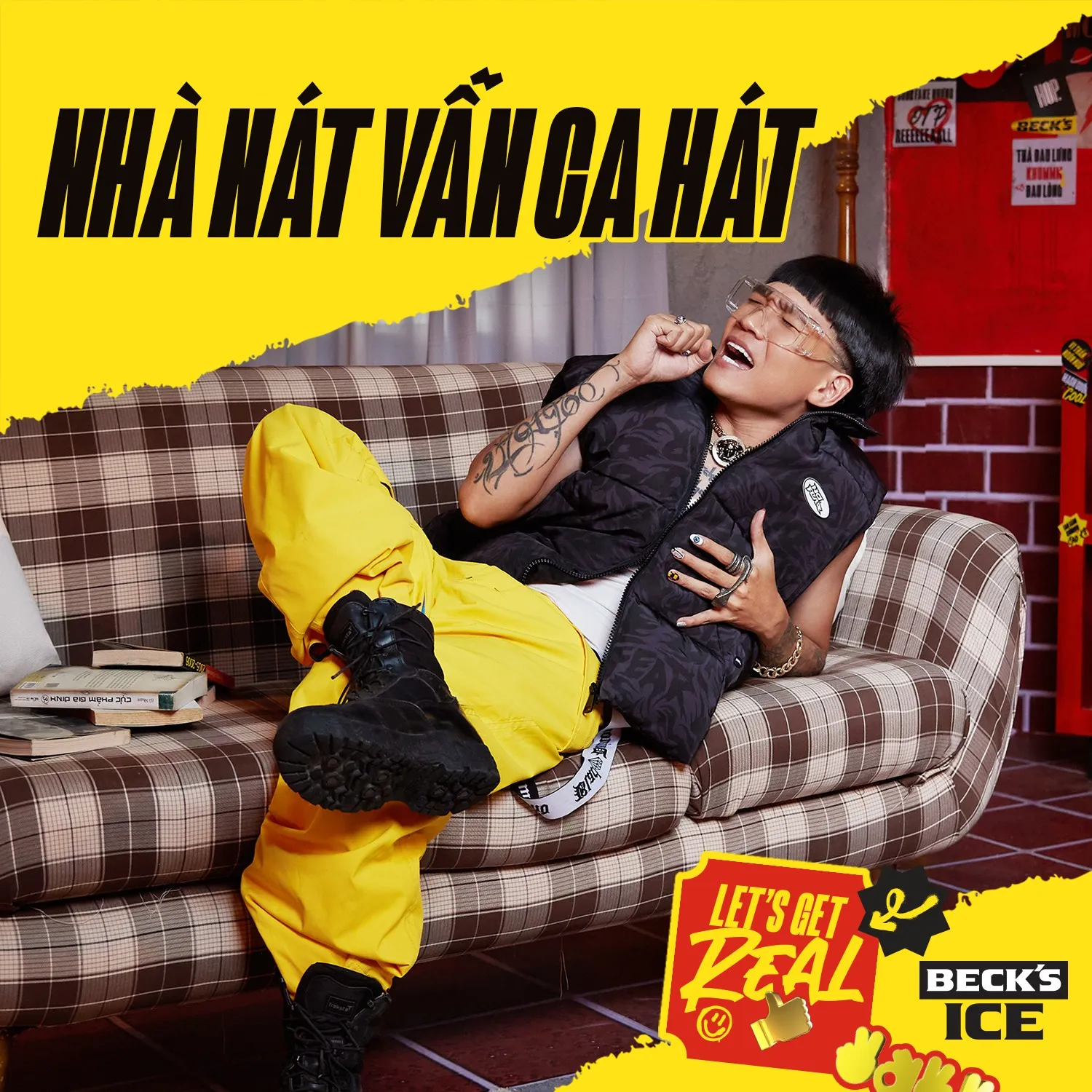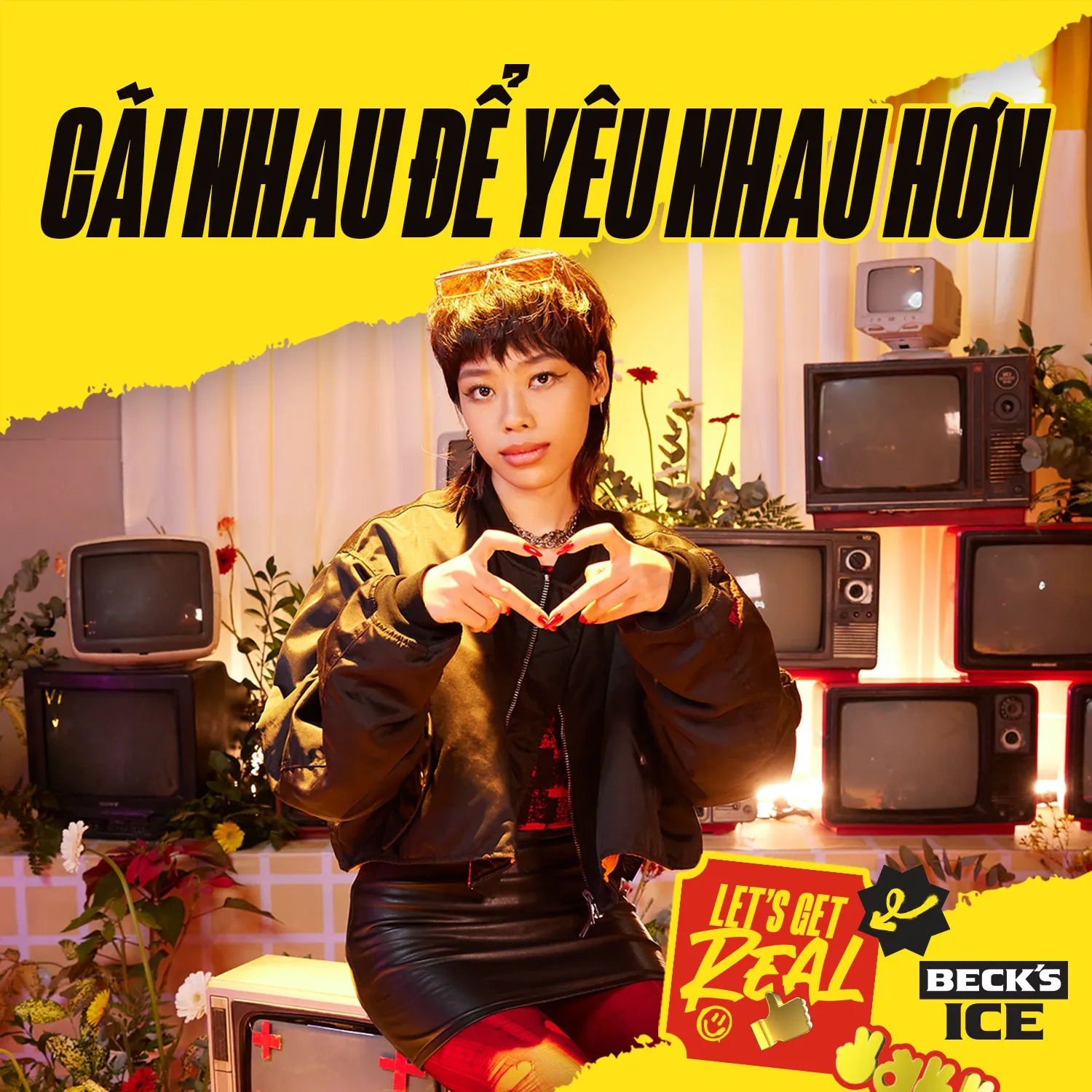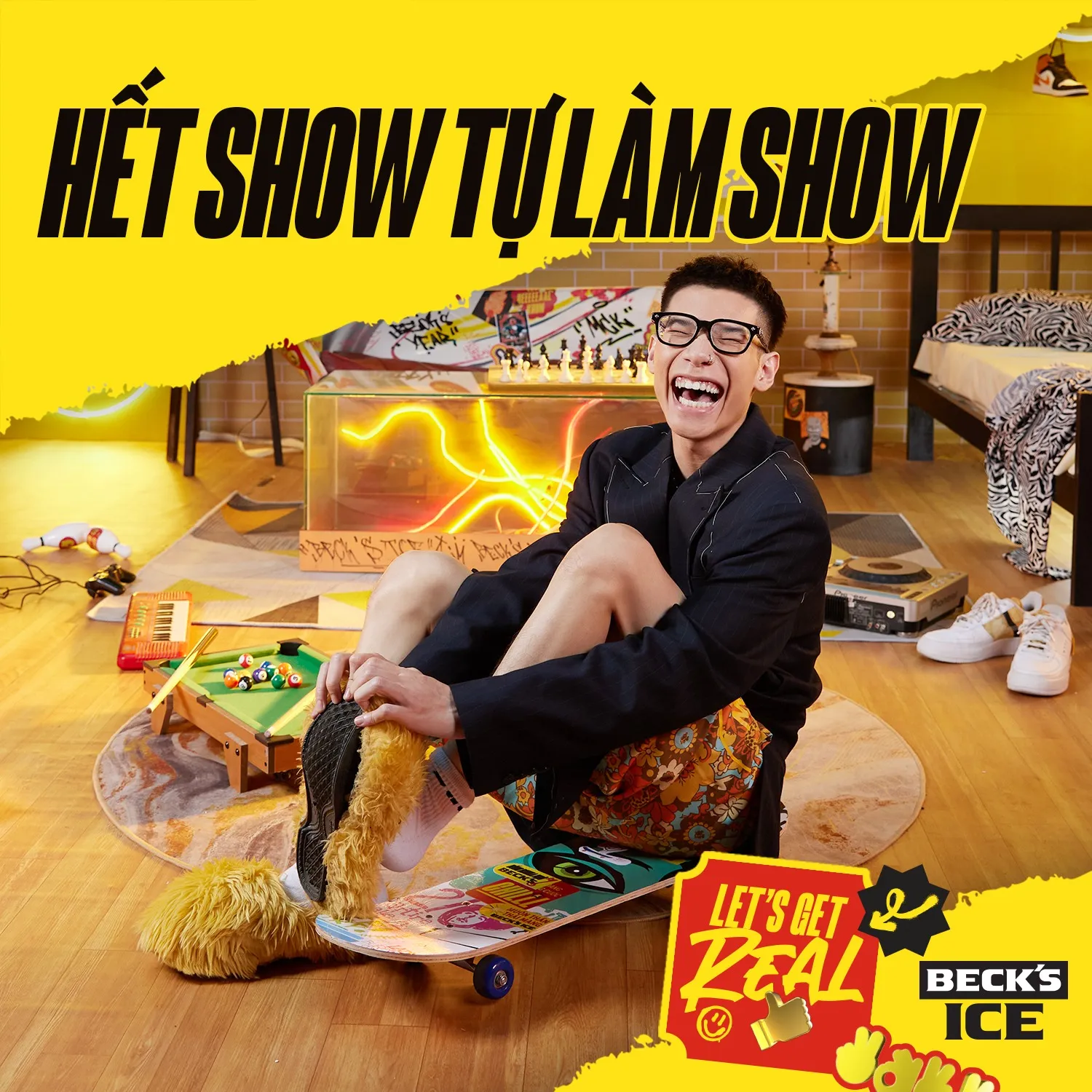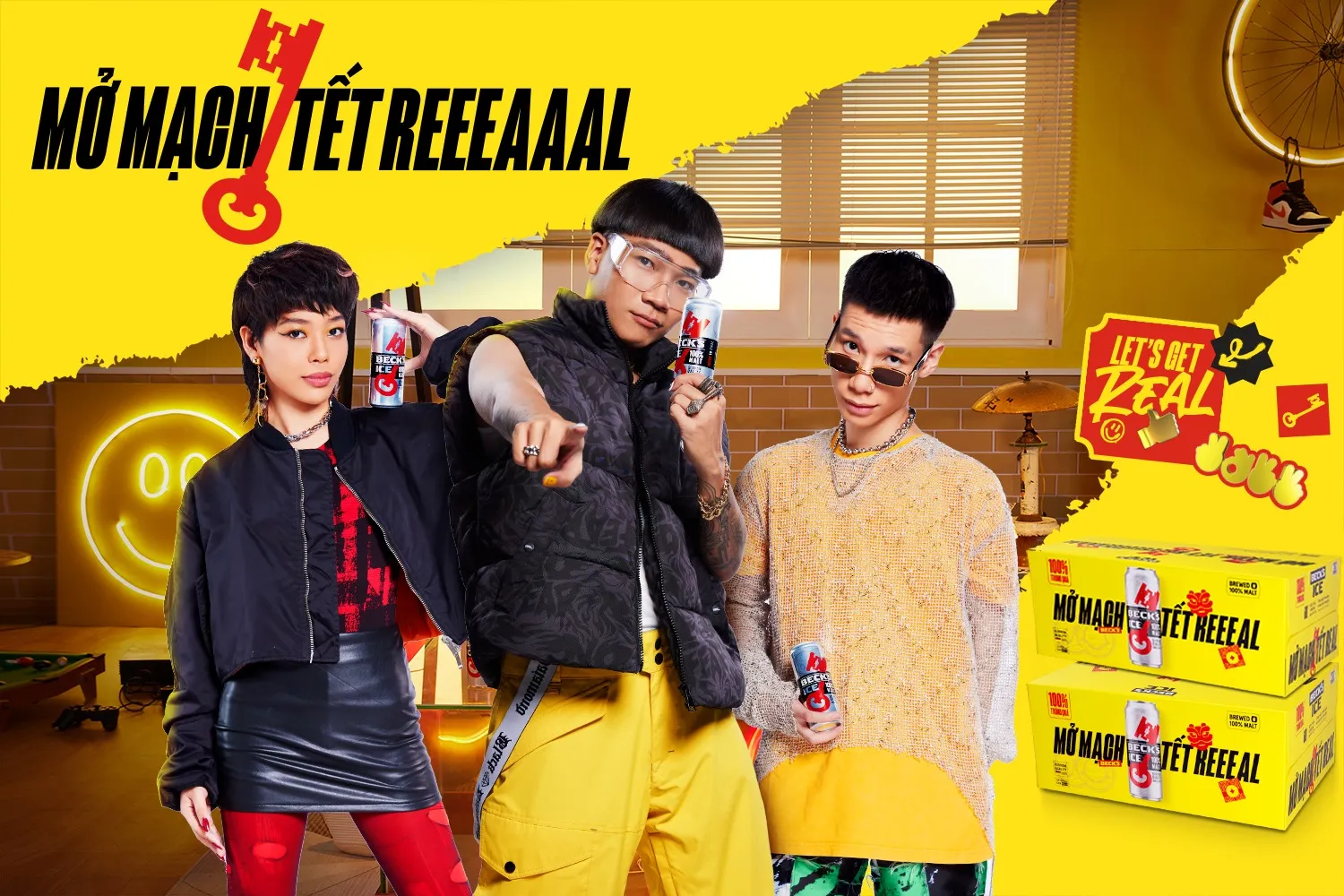
Custom Font: Chillz Display
A bold font for a bold campaign
We were contacted by M β€” N Associates, an amazing design studio based in Vietnam, to work alongside them to extend the language coverage of Arges, our super bold & condensed font family. The custom version of Arges, named Chillz Display, extends the font family language covered towards Vietnamese.
Here's a sample of what M β€” N Associates designed using custom Arges β€” Chillz Display!